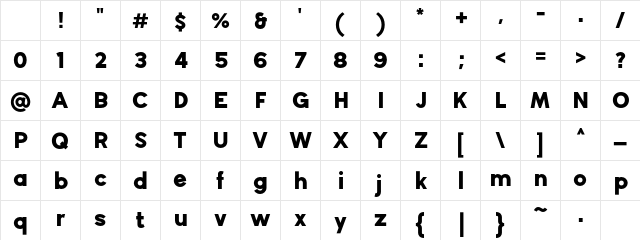
Wavehaus is a composed and adaptable typeface that performs quietly and consistently across a wide range of design contexts. Its bold stroke weight gives it real presence on the page.